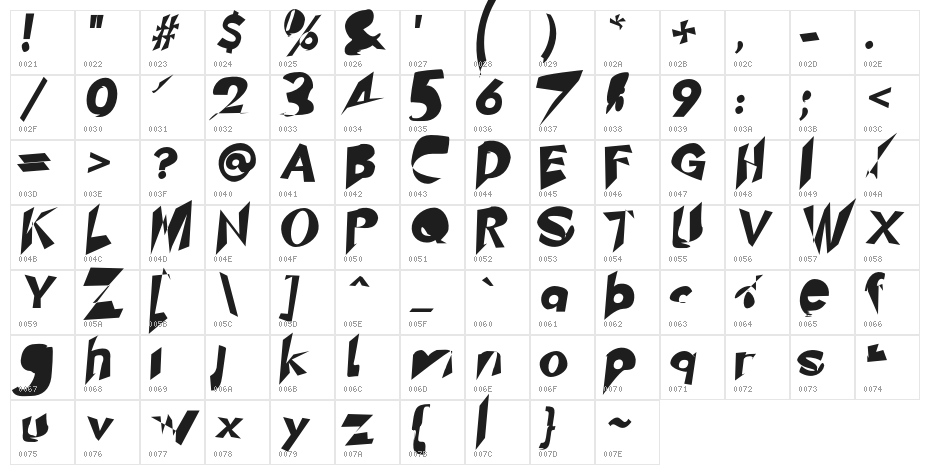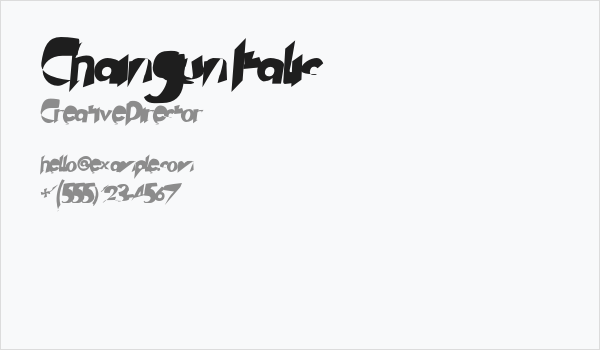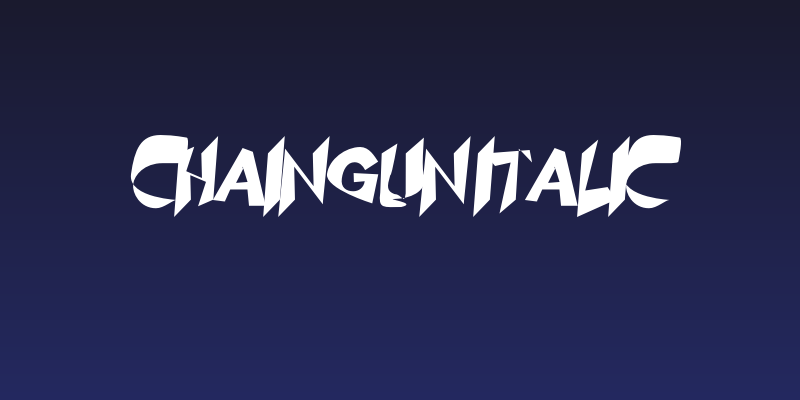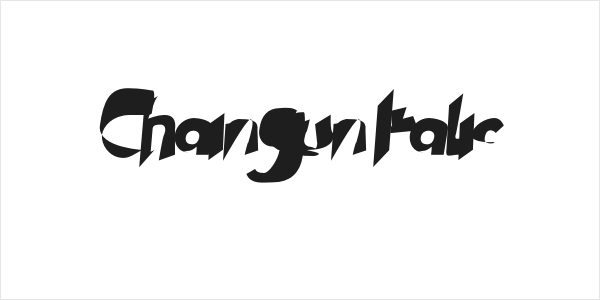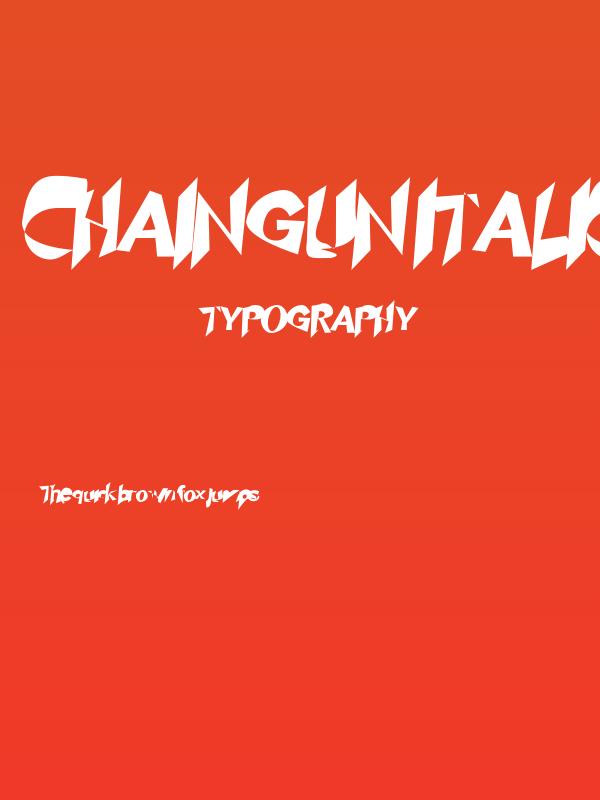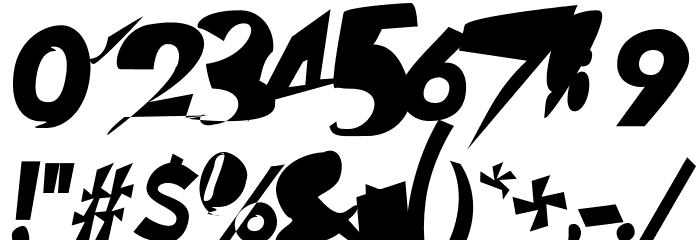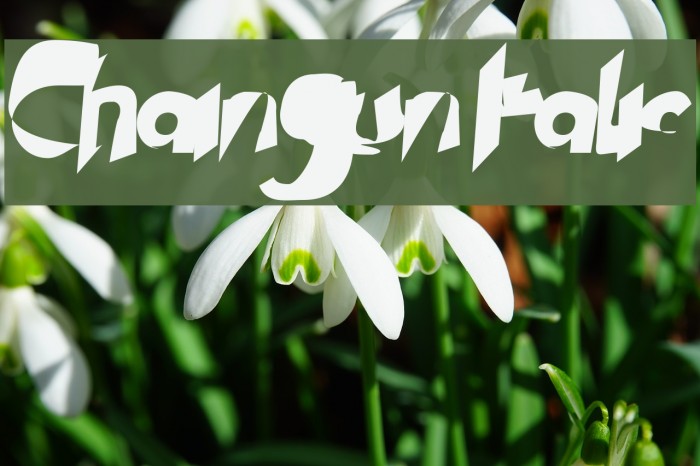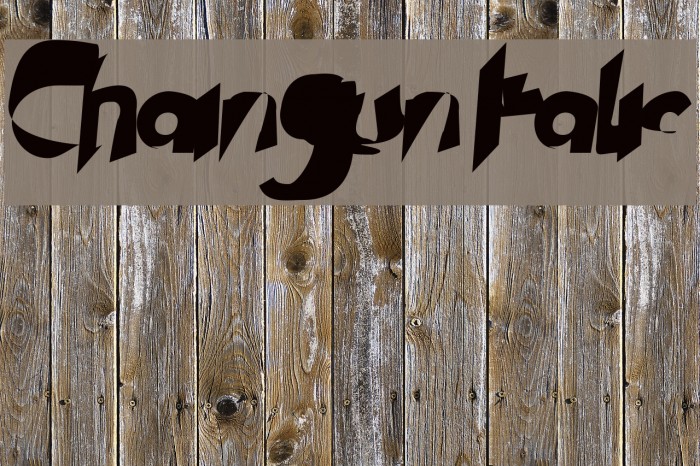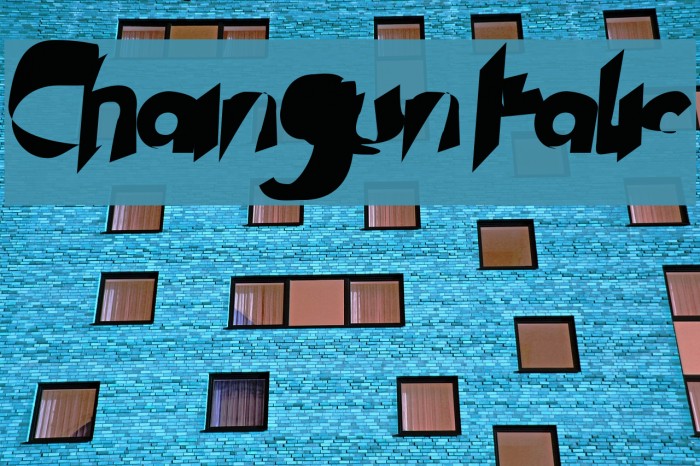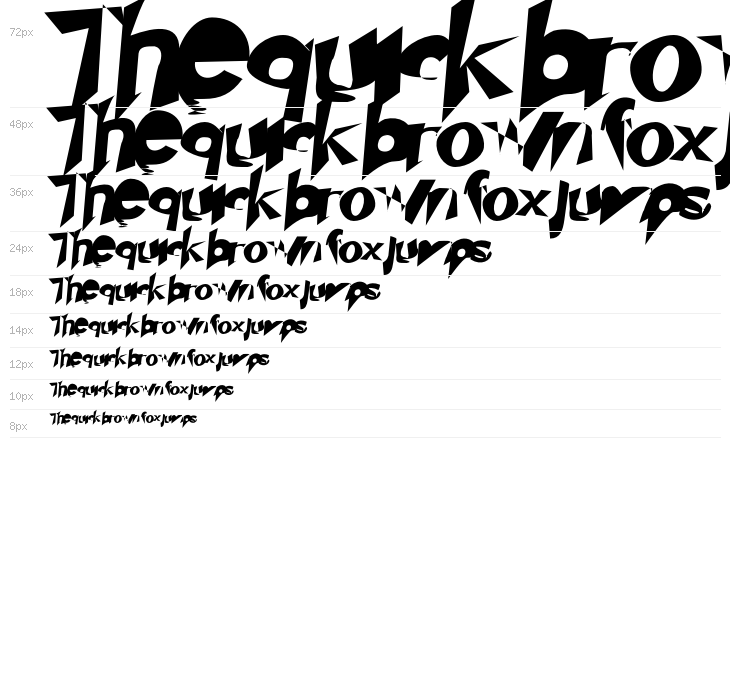
Chaingun Italic Font
This font features a bold and dynamic style with sharp, angular lines and a distinct italic slant. The characters are heavily stylized, giving a sense of movement and energy. The uppercase and lowercase letters maintain a consistent design, with exaggerated curves and pointed edges. Numbers and special characters follow the same aesthetic, ensuring uniformity across all glyphs. The font's aggressive and modern appearance makes it stand out, ideal for projects that require a strong visual impact.
| Proposed Projects | Ideal for video game titles, action movie posters, edgy branding, and dynamic graphic designs. |